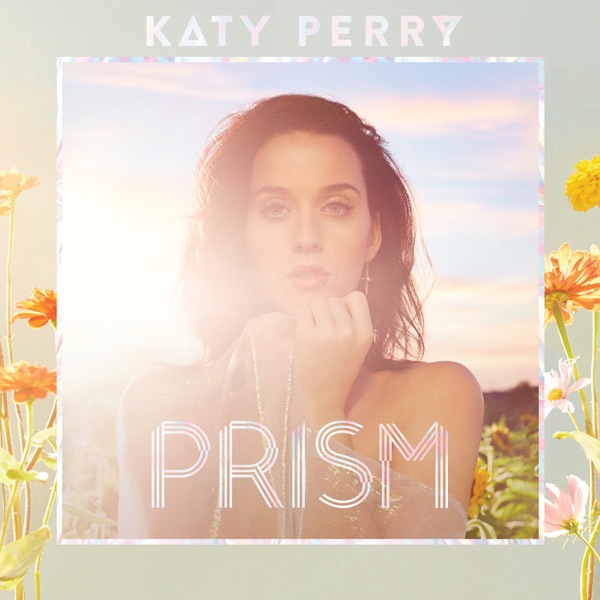
Can someone please help me identifying the font used for Katy Perry's album Prism? It might be a custom font, but not 100% sure. Thanks in advance.
Seems to be a modification of Prism (removing lines, extending the leg on the R, flopping the M, offsetting sections).